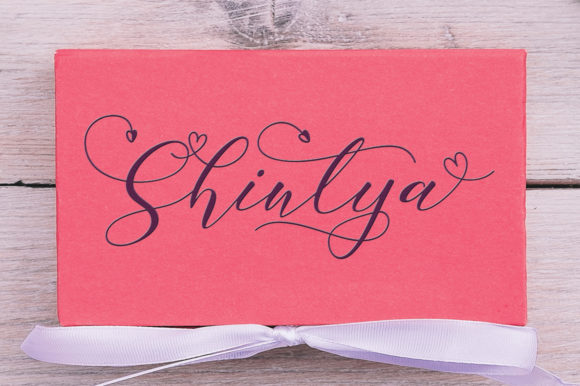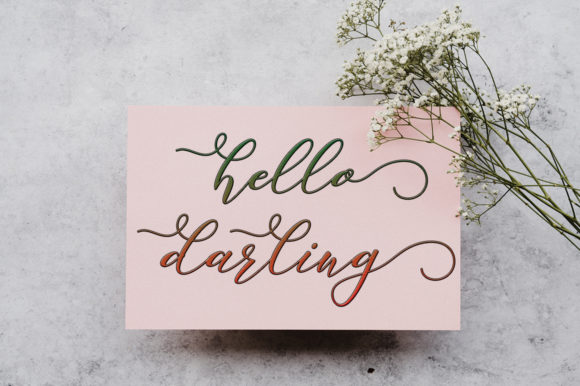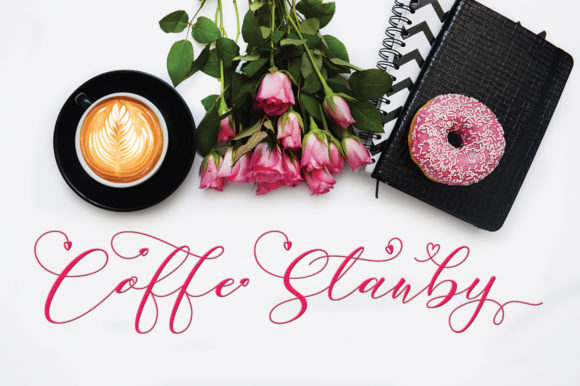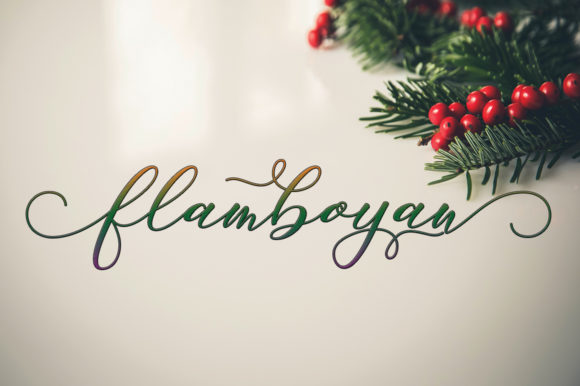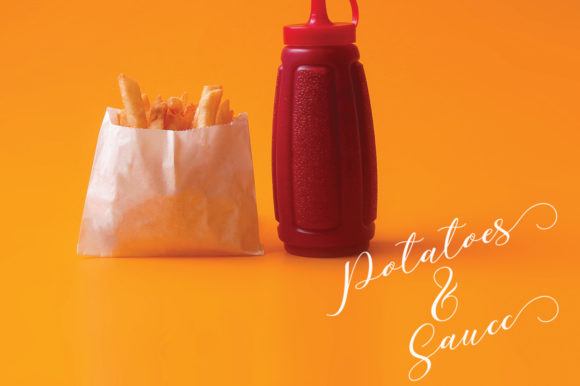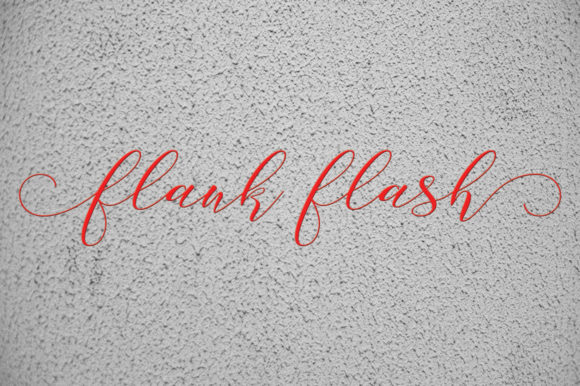
Discover the Charm of Girl Love Font: A Versatile Display Font for Your Creative Projects
Are you a designer, crafter, or DIY enthusiast looking for a font that can add a touch of elegance and whimsy to your creative projects? Look no further than the Girl Love Font! This beautiful display font is not only cute and playful but also casual, making it perfect for a wide range of applications. From greeting cards to stunning calligraphy art, Girl Love Font is guaranteed to elevate your designs to the next level.
What Makes Girl Love Font So Special?
Girl Love Font is a versatile display font that boasts a unique blend of playfulness and sophistication. Its casual vibe makes it ideal for designs that require a personal touch, while its elegant features ensure that it can be used for more formal projects as well. Whether you’re creating handmade cards, crafting beautiful calligraphy art, or designing social media graphics, Girl Love Font is the perfect choice.
PUA Encoding for Easy Access to Glyphs and Swashes
One of the standout features of Girl Love Font is its PUA (Private Use Area) encoding. This means that you can access all of the playful glyphs and swashes with ease, allowing you to add a personal touch to your designs. With PUA encoding, you can easily navigate the font’s extensive library of special characters, making it simple to create unique and eye-catching designs.
A Wealth of Special Features
Girl Love Font is more than just a beautiful display font – it’s also packed with special features that make it a joy to use. Some of the key features include:
- Alternate Glyphs: Girl Love Font includes a range of alternate glyphs that allow you to mix and match different characters to create a unique look.
- Ligatures: The font also features ligatures, which enable you to connect letters and create beautiful, flowing script.
- Swashes: With PUA encoding, you can access a range of swashes that add a touch of elegance to your designs.
Girl Love Font is a dream come true for designers and crafters who want to add a personal touch to their creations. Whether you’re a seasoned professional or a DIY enthusiast, this font is easy to use and guarantees stunning results. Here are just a few ways you can use Girl Love Font:
- Greeting Cards: Create beautiful, handmade greeting cards for special occasions.
- Calligraphy Art: Use Girl Love Font to create stunning calligraphy art that showcases your creativity.
- Social Media Graphics: Add a touch of elegance to your social media graphics and make your content stand out.
- Handmade Crafts: Use Girl Love Font to add a personal touch to your handmade crafts, such as journals, planners, and gift tags.
| Font Name | Girl Love Font |
| Author | faisal_Alfaraby |
In conclusion, Girl Love Font is a versatile display font that’s perfect for designers, crafters, and DIY enthusiasts. With its unique blend of playfulness and sophistication, PUA encoding, and special features like alternate glyphs and ligatures, this font is guaranteed to elevate your designs to the next level. So why wait? Discover the charm of Girl Love Font today and start creating stunning designs that showcase your creativity!